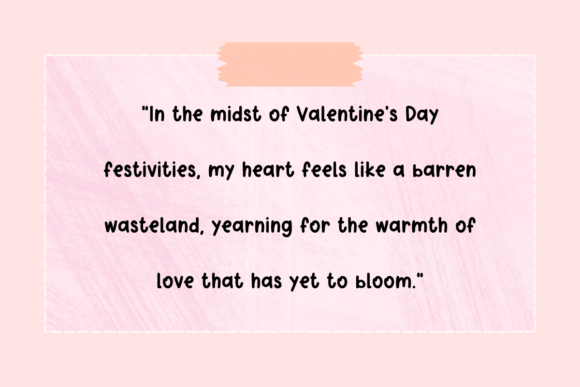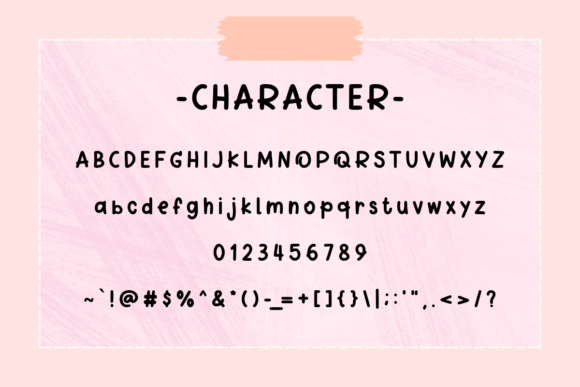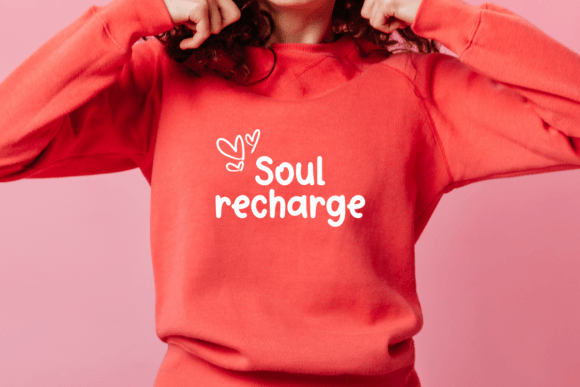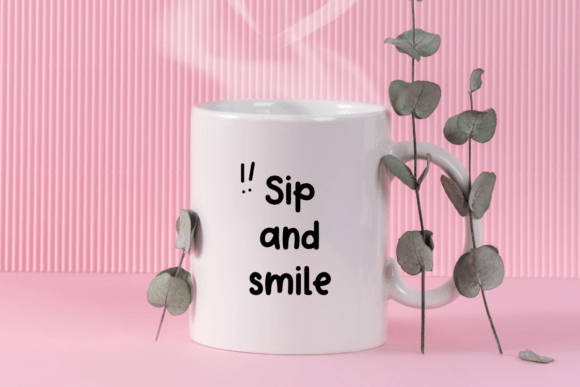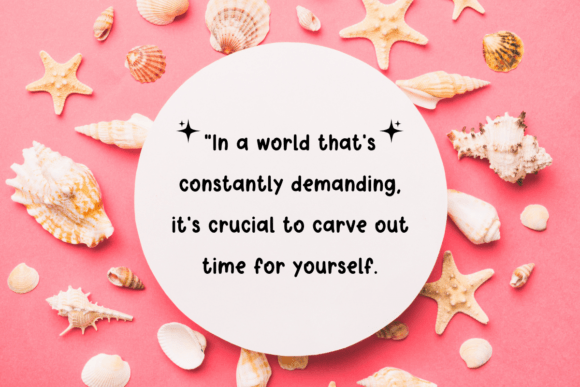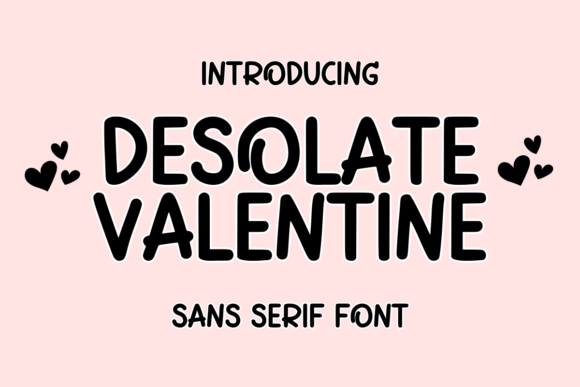
Introducing Desolate Valentine Font: The Perfect Blend of Playfulness and Heartfelt Charm
Are you looking for a font that captures the essence of Valentine’s Day and adds a touch of playfulness to your designs? Look no further than the Desolate Valentine Font. This bold sans-serif font is a unique blend of quirky style and heartfelt charm, making it the perfect choice for creating romantic-themed designs, Valentine’s Day cards, and love notes.
A Font that Strikes the Perfect Balance
Desolate Valentine Font strikes the perfect balance between modern simplicity and heartfelt creativity. Its rounded edges and heart-inspired details give it a fun and playful vibe, while its bold and sans-serif style ensures that it remains modern and sleek. This font is perfect for designers and crafters who want to add a touch of whimsy and romance to their designs.
Key Features of Desolate Valentine Font
- Bold and Sans-Serif Style: The Desolate Valentine Font features a bold and sans-serif style that gives it a modern and sleek look.
- Rounded Edges: The rounded edges of the font add a touch of playfulness and whimsy to the design.
- Heart-Inspired Details: The font features heart-inspired details that make it perfect for Valentine’s Day and romantic-themed designs.
- Playful and Quirky Style: The font has a playful and quirky style that sets it apart from other fonts.
Uses of Desolate Valentine Font
Desolate Valentine Font is a versatile font that can be used for a variety of design projects. Here are some ideas:
- Valentine’s Day Cards: The font is perfect for creating Valentine’s Day cards that are both fun and romantic.
- Love Notes: The font’s playful and quirky style makes it perfect for creating love notes that are both sweet and sentimental.
- Romantic-Themed Designs: The font can be used to create romantic-themed designs, such as posters, flyers, and brochures.
- Wedding Stationery: The font can be used to create beautiful wedding stationery, such as invitations and thank-you cards.
Tips for Using Desolate Valentine Font
Here are some tips for using Desolate Valentine Font:
- Pair it with Other Fonts: The font can be paired with other fonts to create a unique and interesting design.
- Use it for Headings: The font’s bold style makes it perfect for use as headings in designs.
- Add Graphics and Illustrations: The font can be paired with graphics and illustrations to create a fun and playful design.
Desolate Valentine Font is a unique and versatile font that is perfect for designers and crafters who want to add a touch of playfulness and romance to their designs. Its bold and sans-serif style, rounded edges, and heart-inspired details make it a fun and quirky choice for Valentine’s Day cards, love notes, and romantic-themed designs. With its modern simplicity and heartfelt creativity, Desolate Valentine Font is sure to become a favorite among designers and crafters.